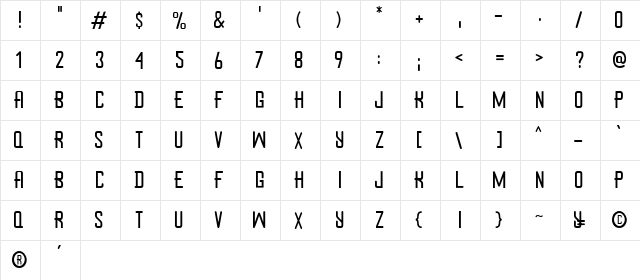
Greisy Regular
| Designer | [ Consistype ] Fachrul Muhamad Ariestyan |
Design Context for Greisy Typeface
Greisy offers clean, dependable letterforms without strong stylistic allegiance, making it a practical choice for designers who need flexibility.